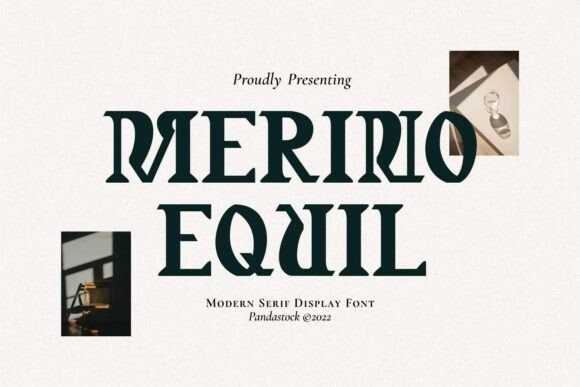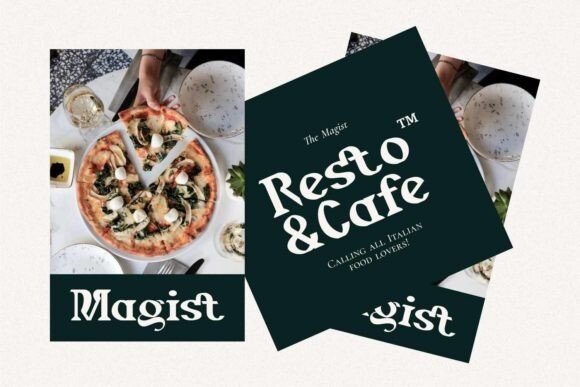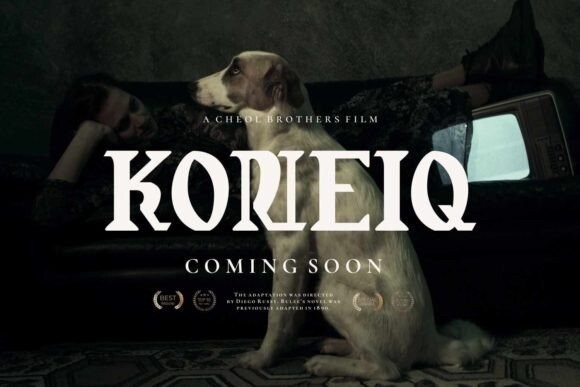
Merino Equil Font
Merino Equil is a stylish and incredibly unique display font. Its elegant and intricate characters are perfect for adding a special touch to any designs you might think of!